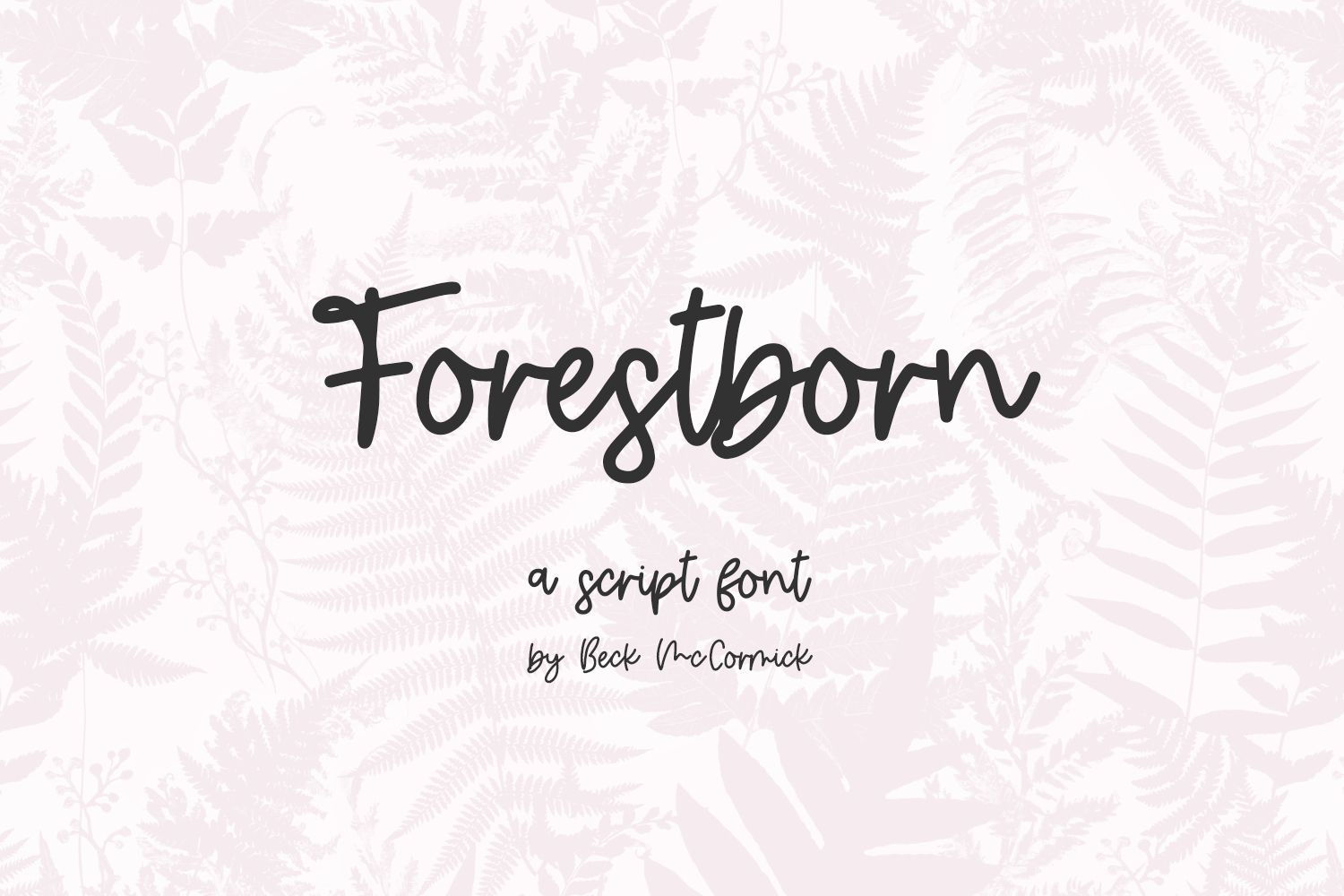
Forestborn Script
Forestborn Script is a casual script font with the perfect amount of bounce. Forestborn is a perfect fit for your farmhouse home decor projects, your Cricut machine, logo & branding projects, marketing materials, social media graphics, & more. Since Forestborn is legible & neat, it would also be a great fit for your Goodnotes planner, other digital planner, or Notability app!
- 12 ligatures - bb, cc, dd, ee, ff, ll, mm, nn, oo, rr, ss, tt